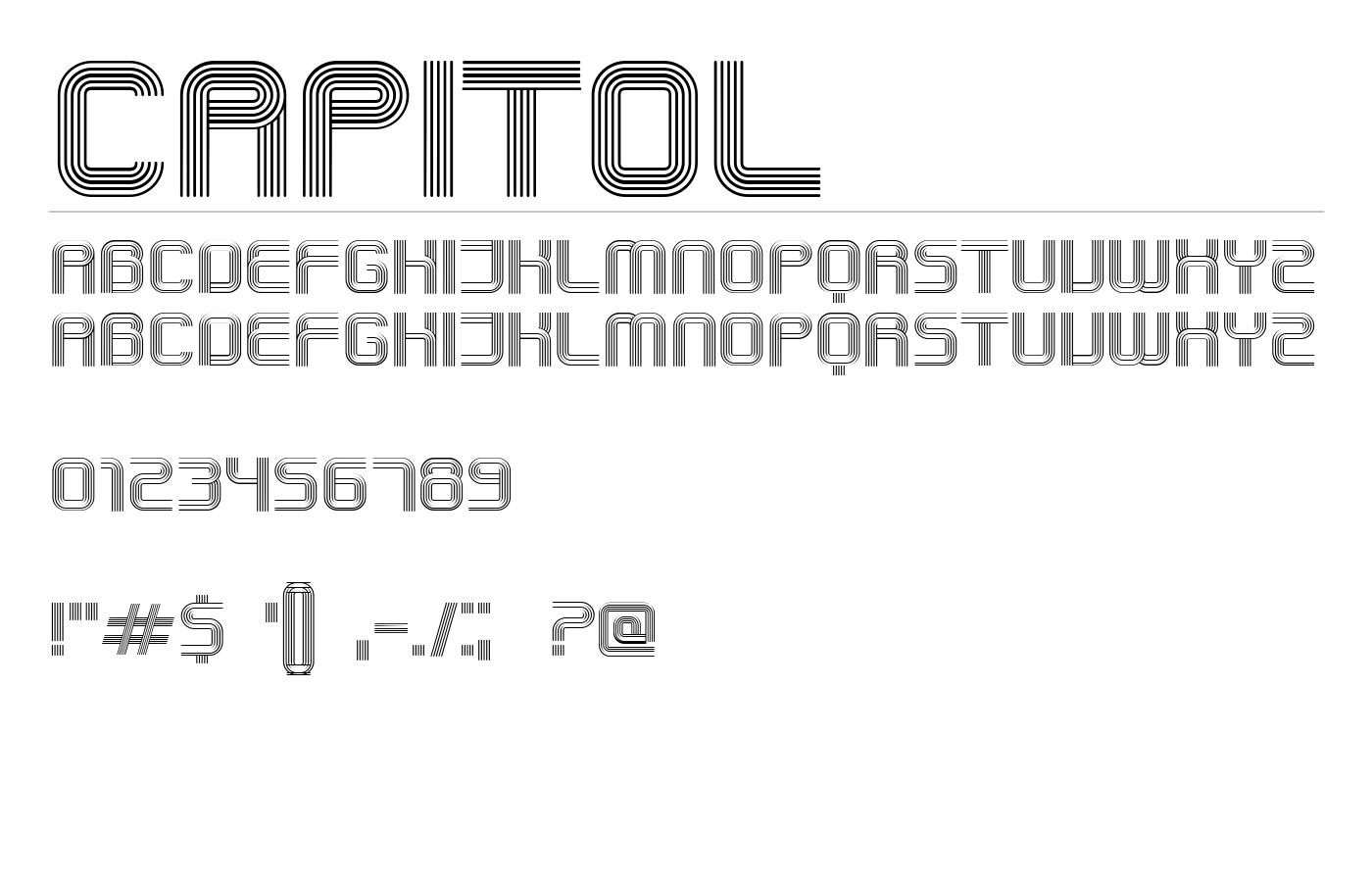
Capitol is a modern, geometric sans serif font with a distinctive multi-line stroke design that creates a dynamic, layered effect. Its clean, uppercase-only letterforms convey a futuristic and sophisticated vibe, making it ideal for branding, posters, and headlines where a bold, eye-catching statement is needed. This font’s unique style works well for tech, fashion, and creative industries seeking a sleek, contemporary look.
Capitol Font
About Capitol Font
| Font family | Capitol Font |